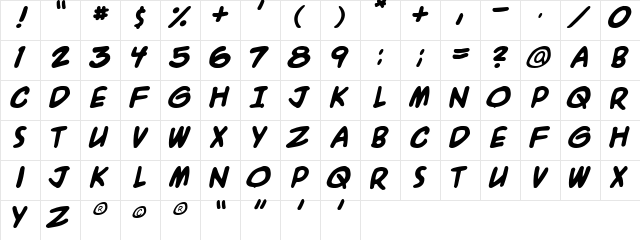
A.C.M.E. Explosive Bold
Design Context for A.C.M.E. Explosive Typeface
A.C.M.E. Explosive is a composed and adaptable typeface that performs quietly and consistently across a wide range of design contexts. Its bold stroke weight gives it real presence on the page.
Pro Tip: Pair A.C.M.E. Explosive with a font of contrasting weight or personality to build a more expressive typographic hierarchy.